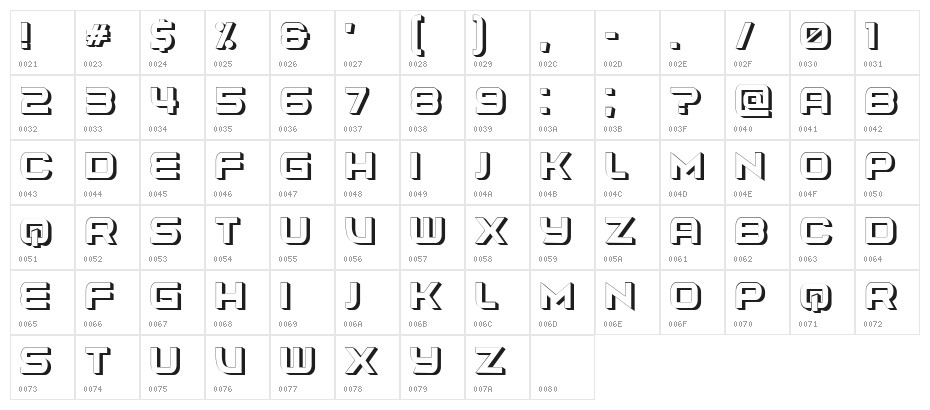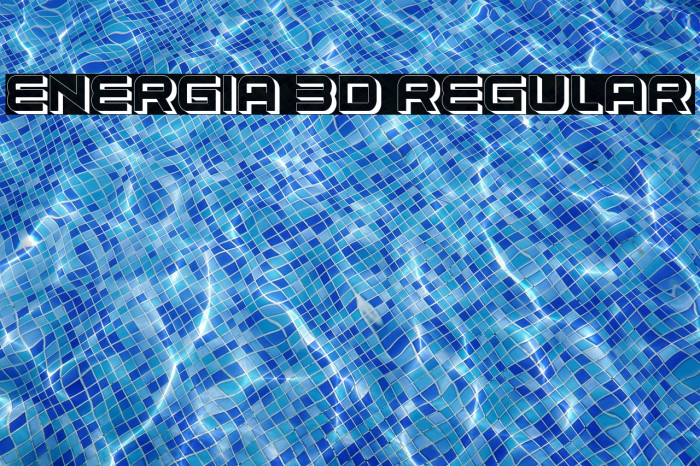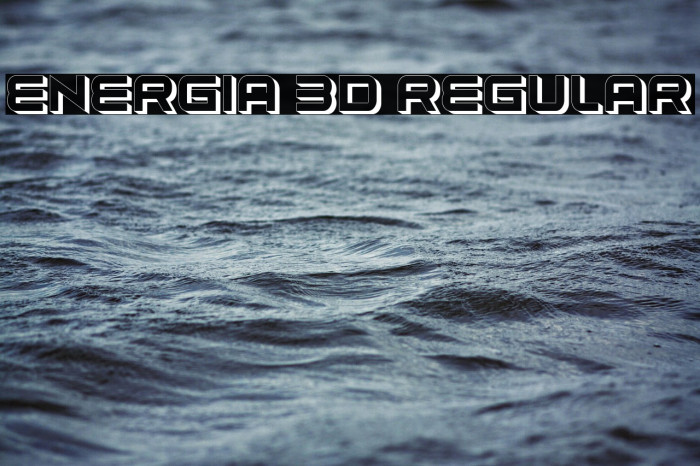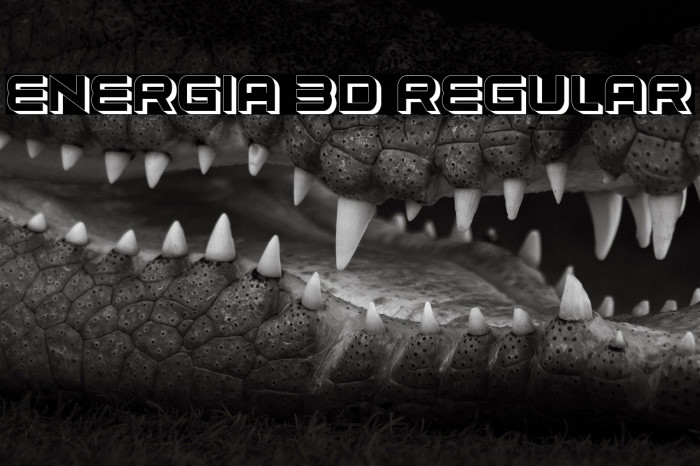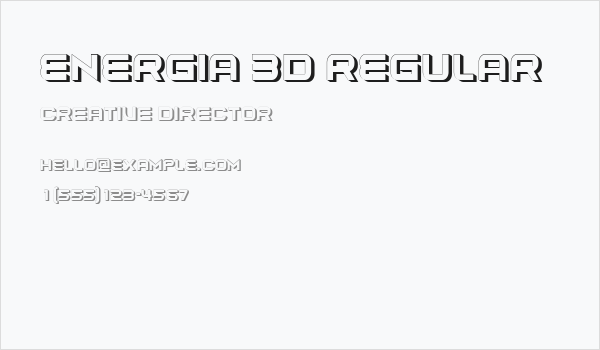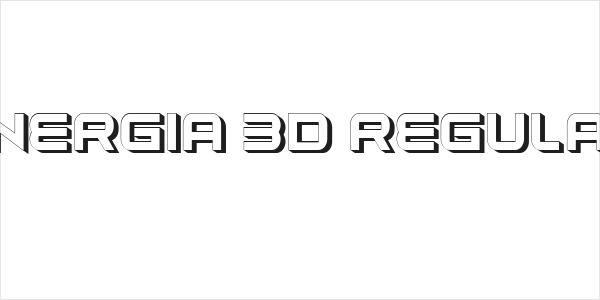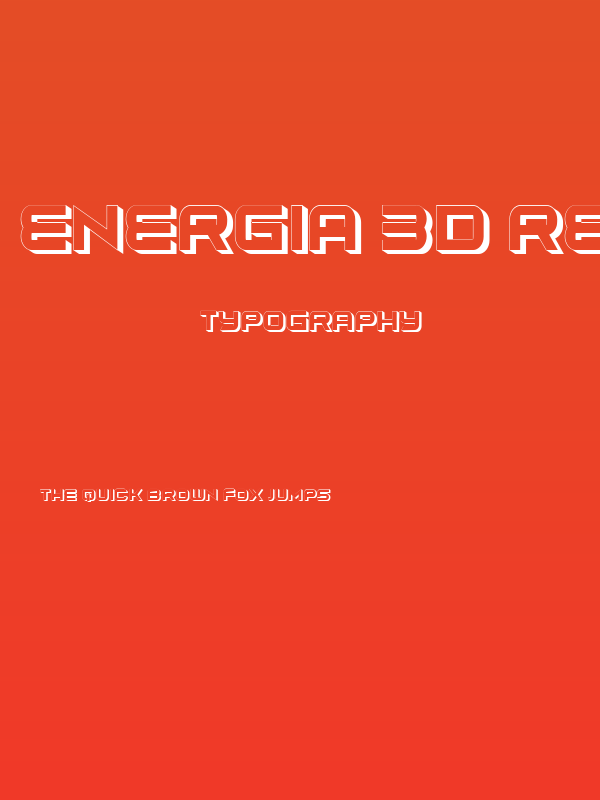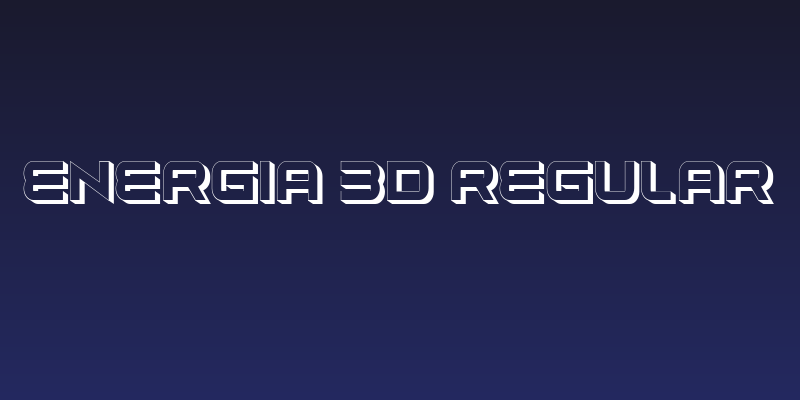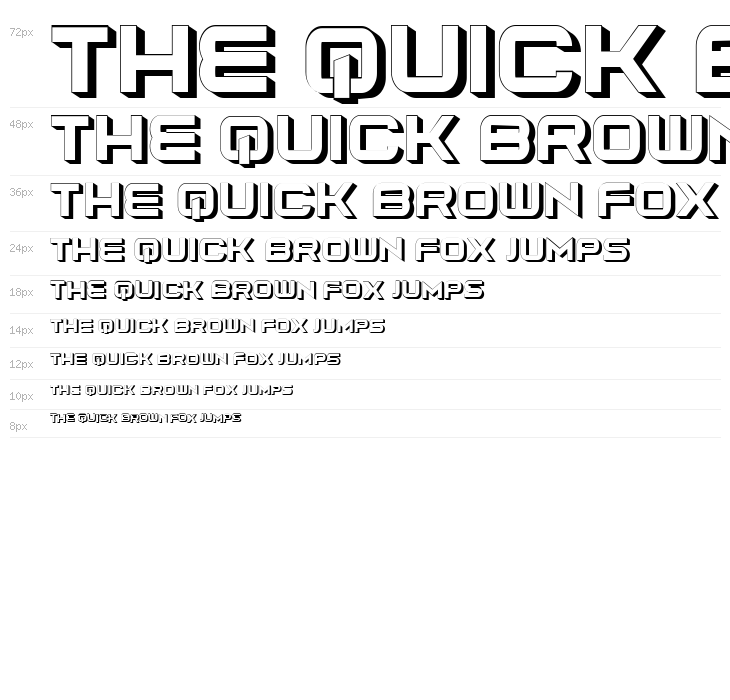
Energia 3D Regular Font
Energia 3D Regular Description
This font features a bold, three-dimensional design that gives each character a striking, futuristic appearance. The letters are capitalized and maintain a consistent geometric structure, with sharp angles and clean lines that create a sense of depth and dimension. The font's shadow effect enhances its 3D look, making it stand out on any page. The numerals and special characters follow the same design principles, ensuring a cohesive look across all text elements. This font is perfect for projects that require a modern and dynamic aesthetic.
Proposed ProjectsIdeal for sci-fi themed posters, video game titles, tech branding, and modern advertisements.